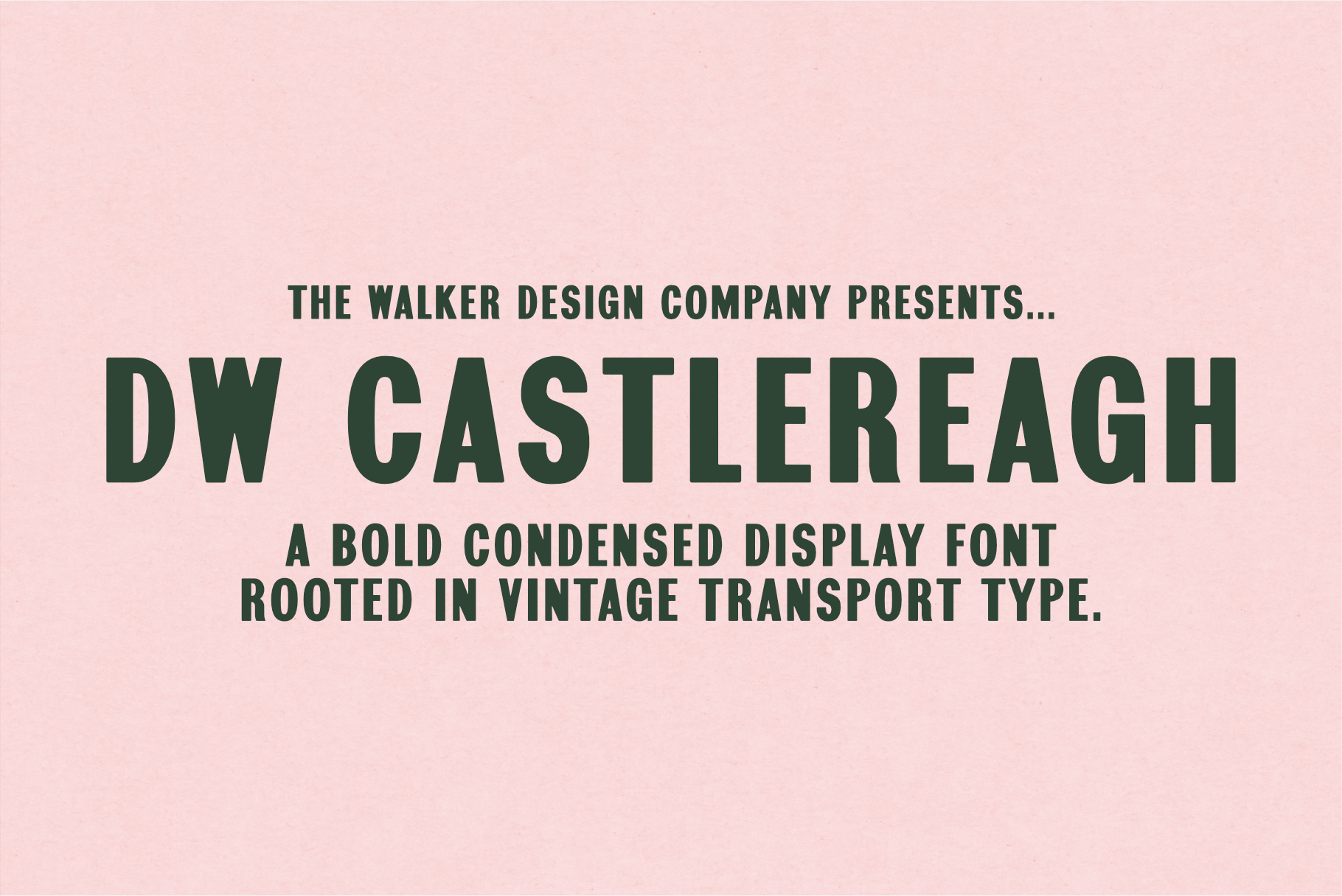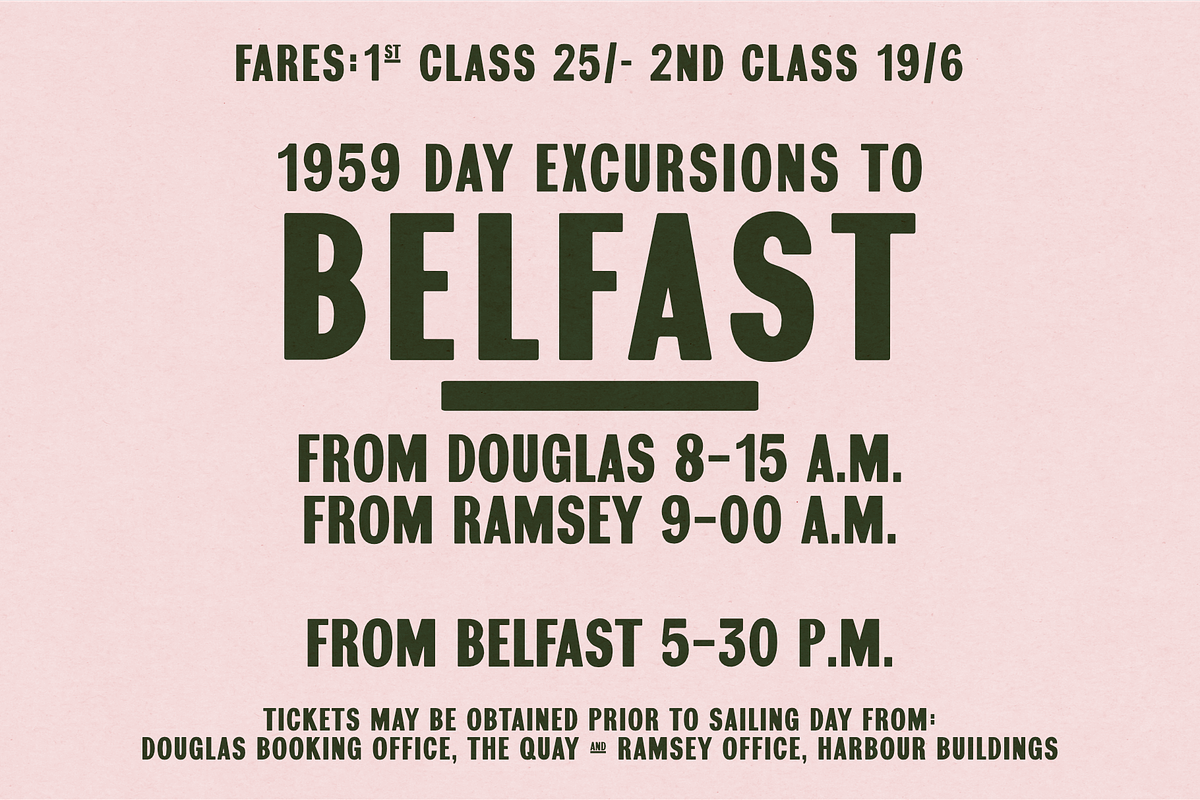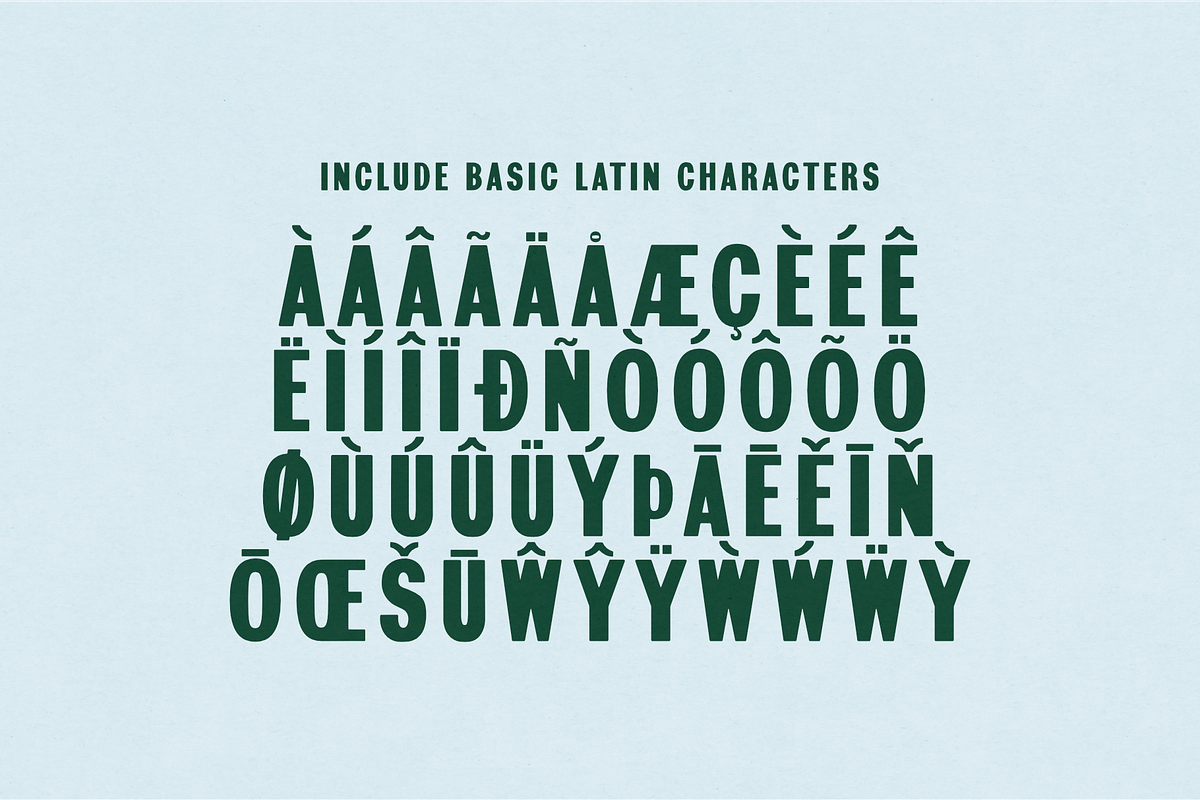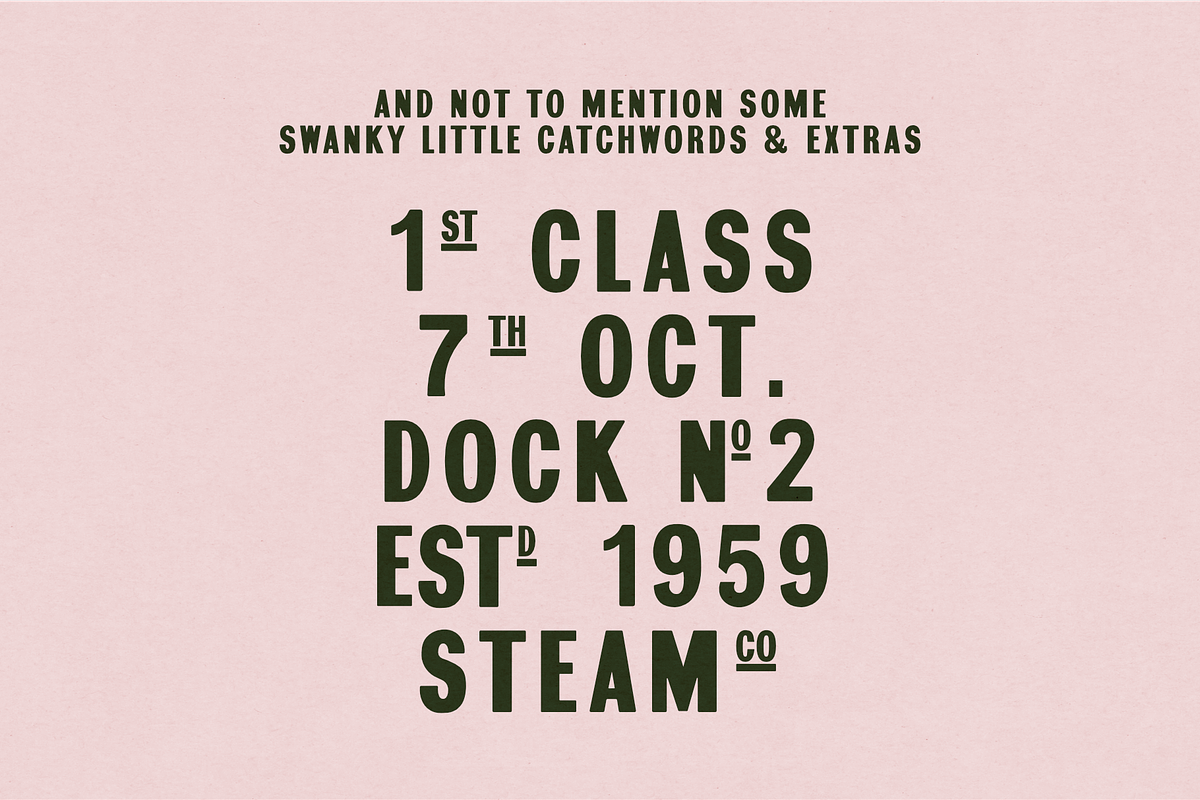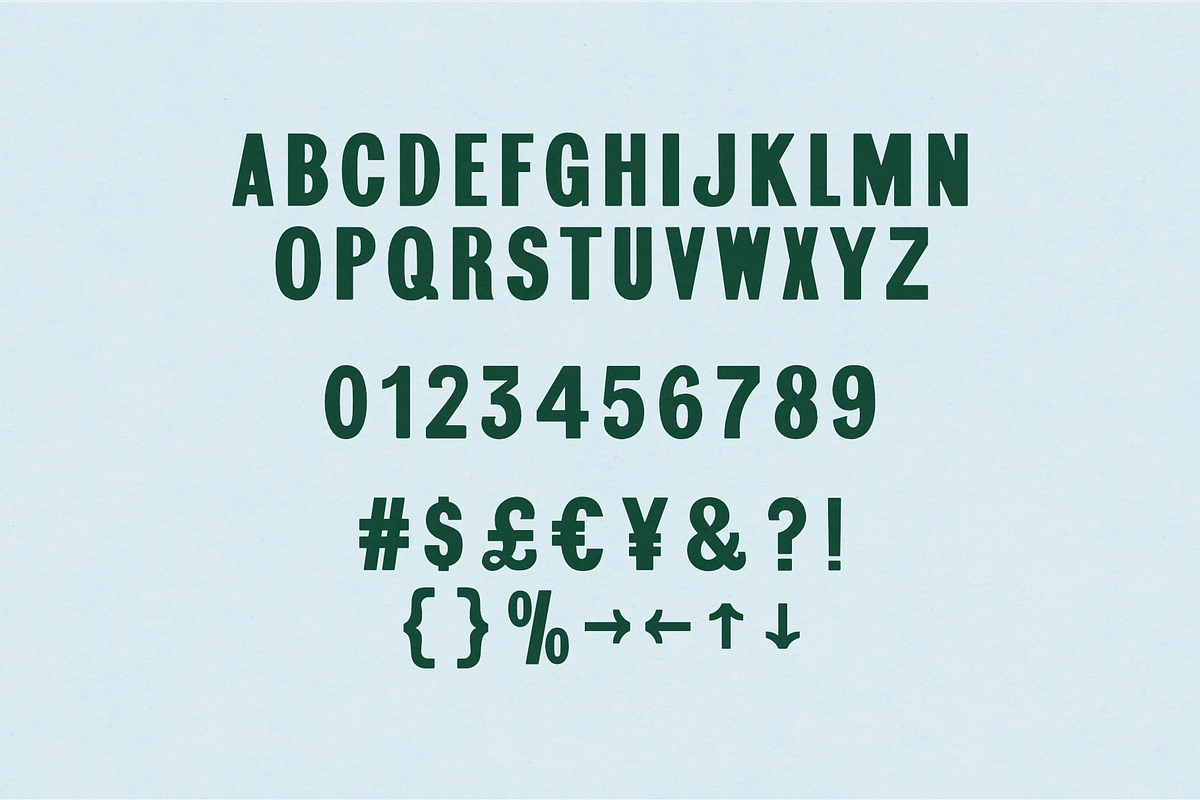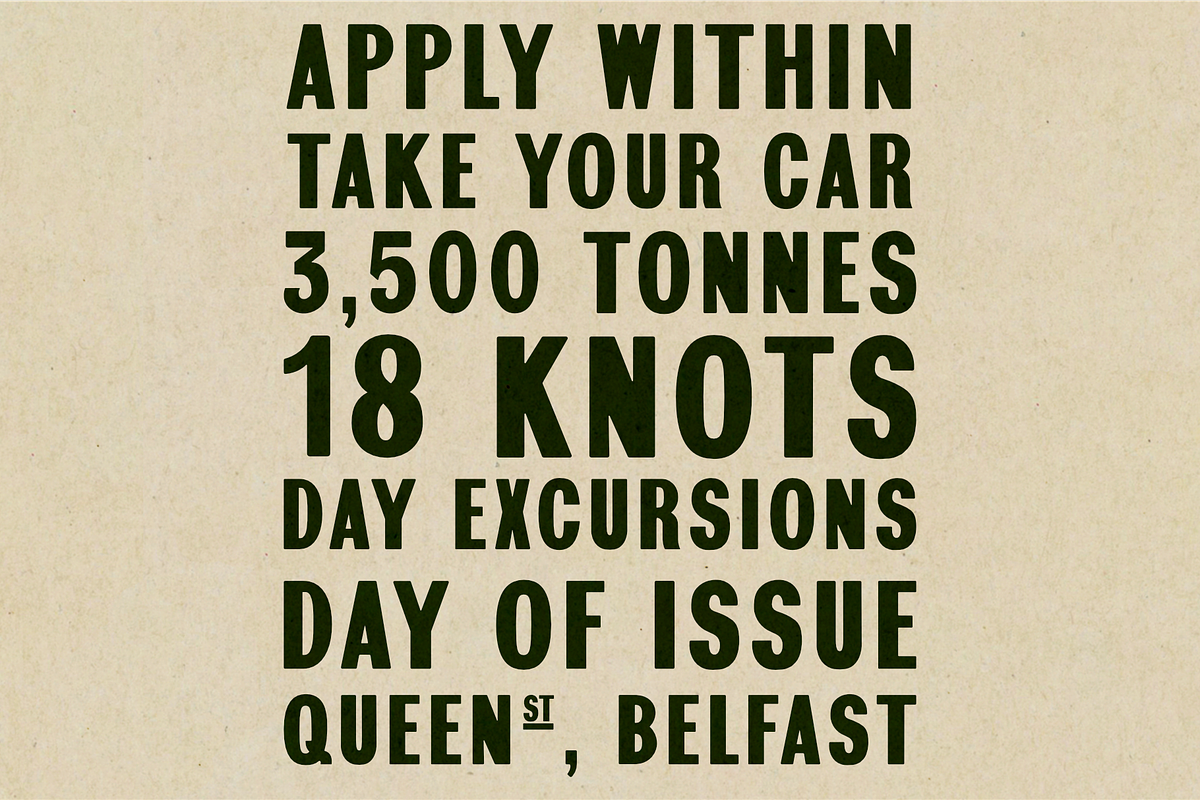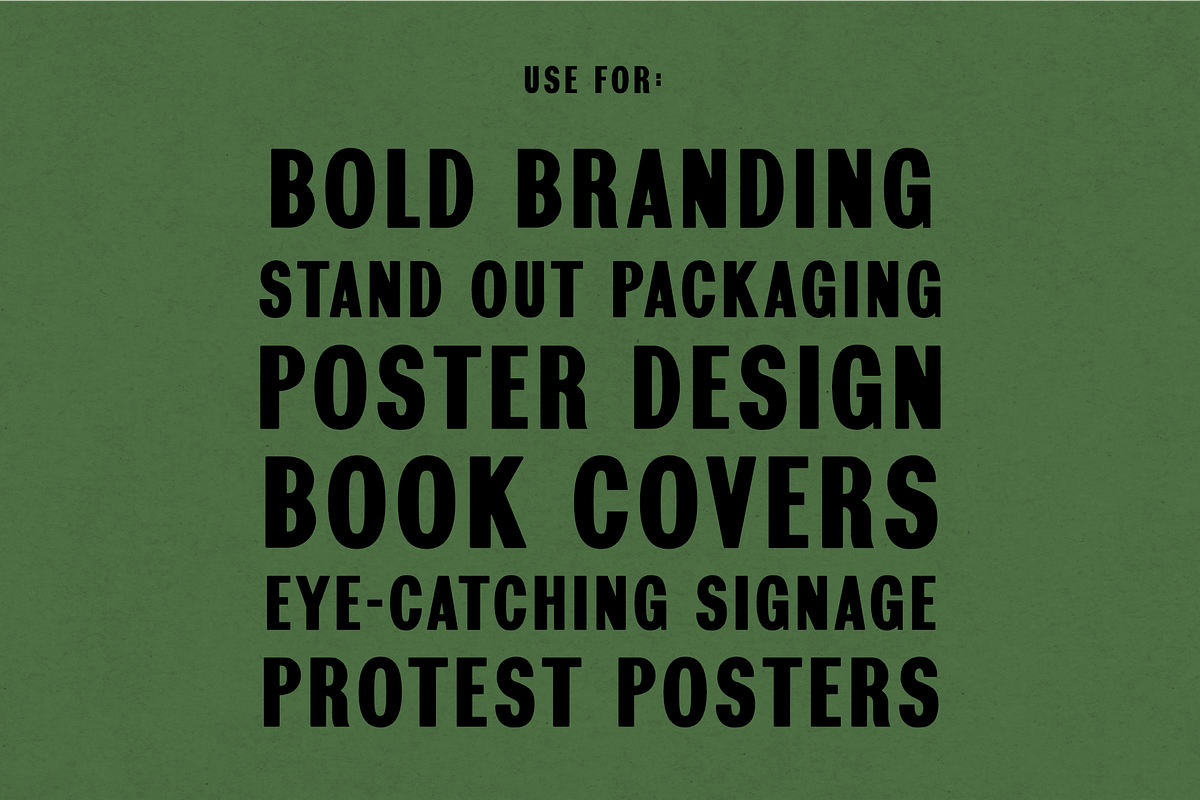
DW Castlereagh - Vintage Font
A bold, condensed display sans inspired by vintage American wood type and 1950s Transport Signage in Northern Ireland/Isle of Man.
This typeface draws inspiration from Railroad Gothic and mid-century transport and industrial print - think excursion posters, railway signage, and bold headlines - and refines those influences into a clean, modern system with enough character for the 21st Century.
It features:
Strong, condensed proportions for maximum impact
Heavy strokes for a solid, confident tone
Rounded corners, angles and curves (in all the right places)
Subtle character-driven details in key glyphs
Designed for display use, it works particularly well in: Branding, packaging, editorial design, posters, merchandise, and signage.
This is a practical, hard-working display font with just enough personality to stand out - without getting in the way.